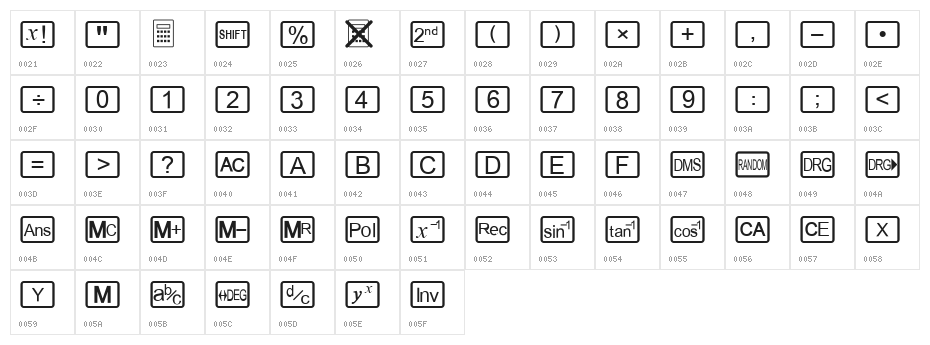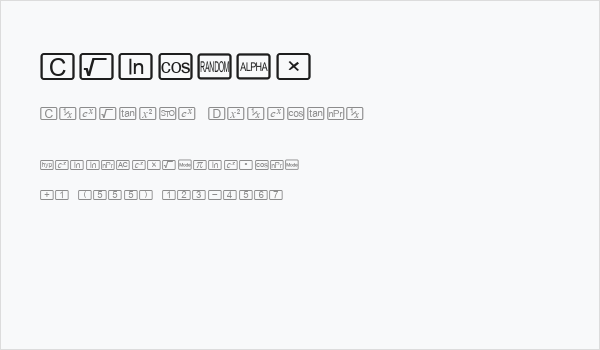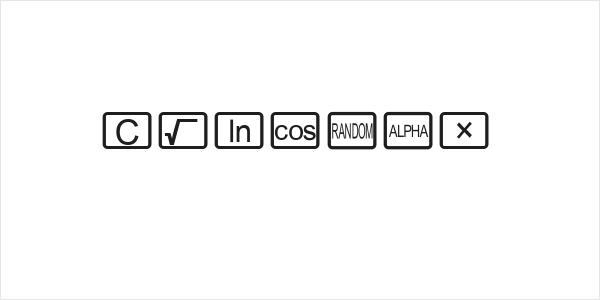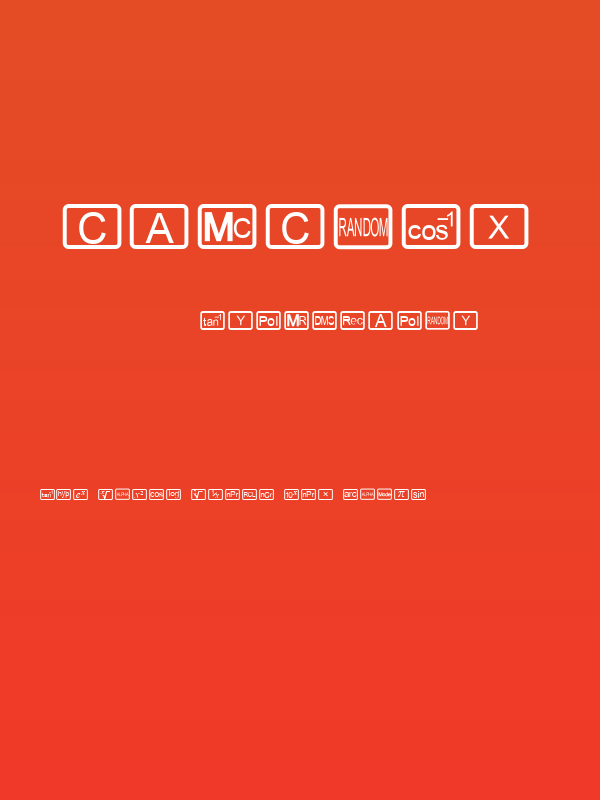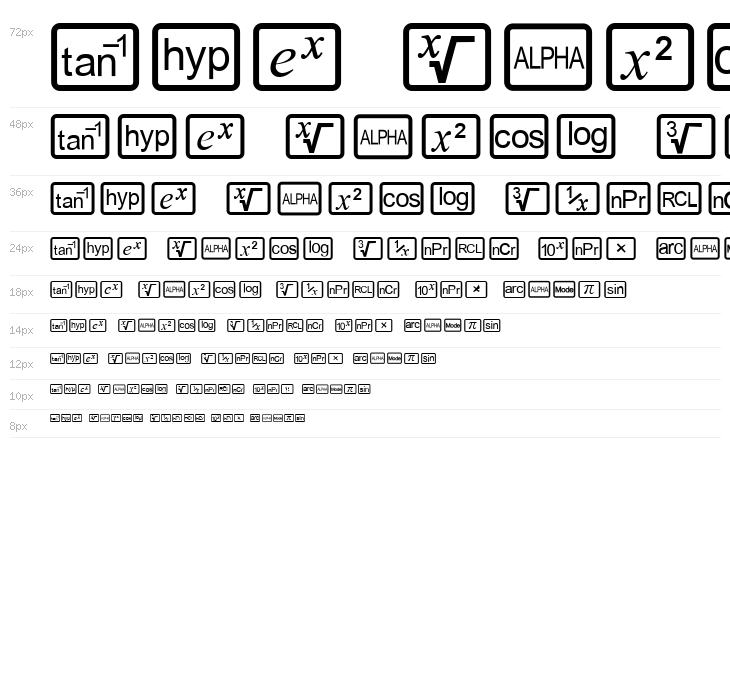
CalcHux Font
CalcHux Description
This font is designed with a technical and functional aesthetic, reminiscent of calculator displays. Each character is enclosed in a rectangular box, giving it a structured and organized appearance. The font includes a wide range of mathematical symbols and functions, such as trigonometric functions, logarithms, and constants, making it ideal for scientific and mathematical contexts. The characters are bold and clear, ensuring readability even at smaller sizes. The style is utilitarian, focusing on clarity and precision, which is essential for technical documentation or educational materials.
| Overall Style | Technical |
| Use Case | Technical documentation, Educational materials, Calculator interfaces |
| Proposed Projects | Ideal for educational materials, scientific publications, technical manuals, and calculator interfaces. |